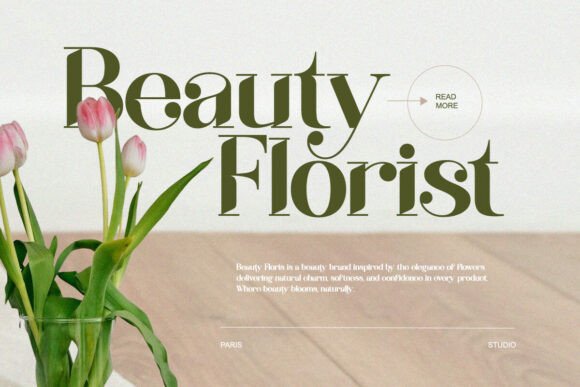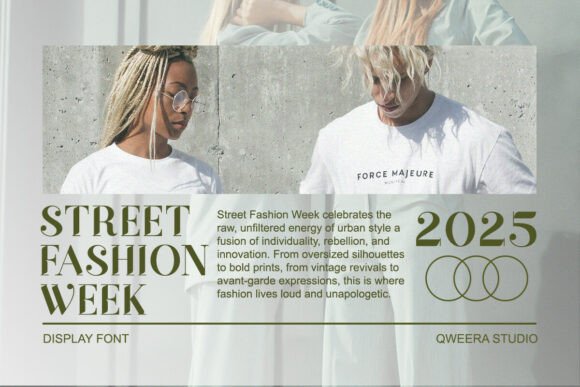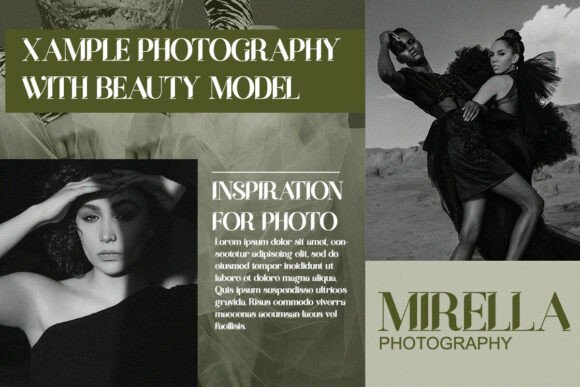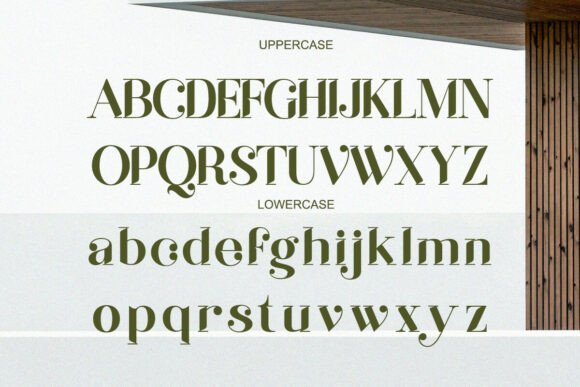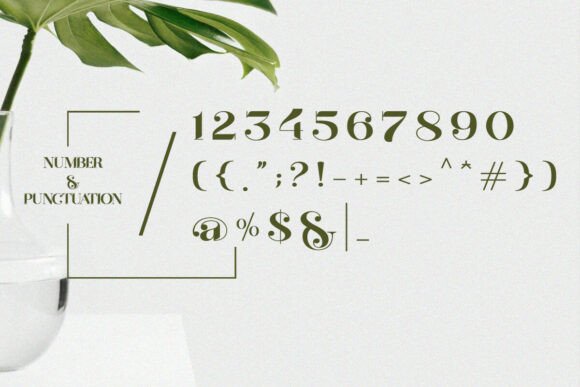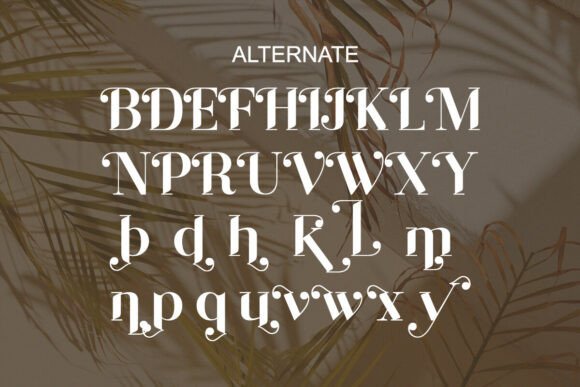
Introduction to Febisyer Font
Febisyer Modern Display Serif Font – A bold yet elegant typeface crafted to bring sophistication and strength into your design projects.
With its unique serif details and contemporary structure, Febisyer strikes the perfect balance between modern aesthetics and timeless typography traditions Designed with versatility in mind, Febisyer is ideal for logos, editorial layouts, product packaging, fashion campaigns, and creative branding.
Key Features of Febisyer Font